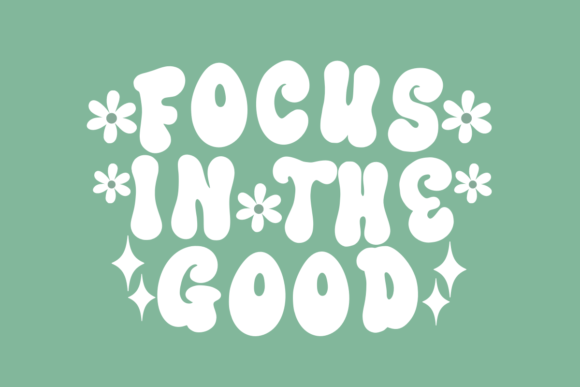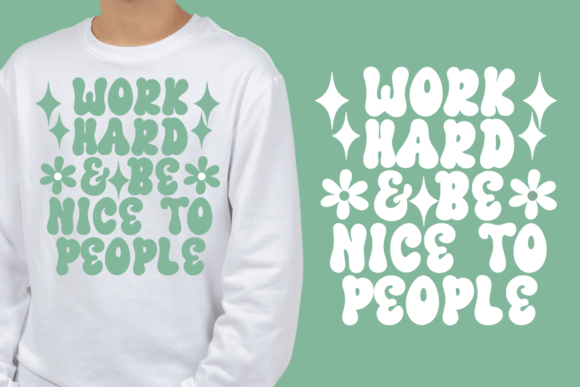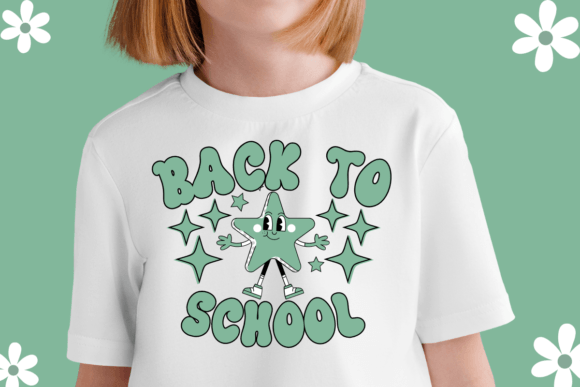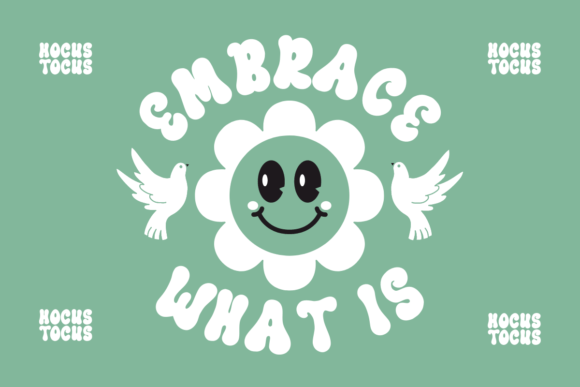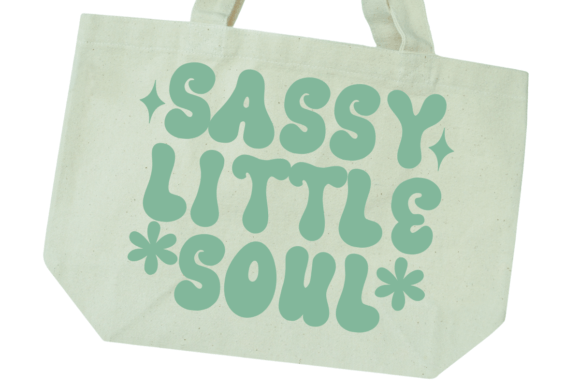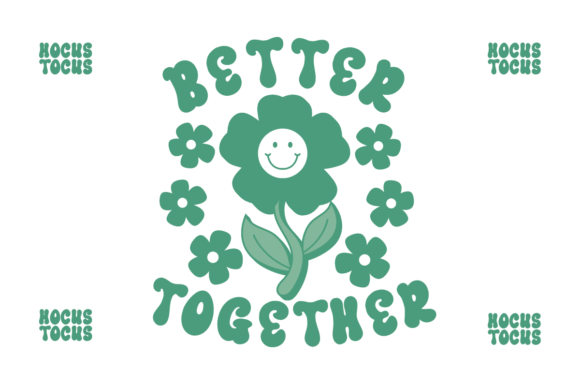
Introduction to Hocus Tocus Font
Have you ever stumbled upon a font that instantly elevates your creative project and makes you feel like a kid in a candy store? For me, that font is Hocus Tocus Font. Its quirky charm and playful vibes are like a breath of fresh air, making even the most mundane designs feel whimsical and delightful.
As a designer, you know how challenging it can be to find that perfect font that adds an extra layer of magic to your work. But with Hocus Tocus Font, you can rest assured that your designs will stand out from the crowd and leave a lasting impression. Whether you’re working on a book cover, poster, or packaging, this high-quality font is sure to be a game-changer.
Honest Review: Hocus Tocus Font
As a designer, I’m always on the lookout for high quality design resources to elevate my creative projects. Recently, I stumbled upon the Hocus Tocus Font, and I’m excited to share my thoughts with you.
- ✨ Unique and playful design: The Hocus Tocus Font has a whimsical feel that’s perfect for adding a touch of magic to your design projects.
- ✨ High quality glyphs: The font is well-designed and features clear, readable glyphs that are perfect for both on-screen and print use.
- ⚠️ Limited language support: Unfortunately, the Hocus Tocus Font only supports a limited number of languages, which may be a drawback for designers working on global projects.
Overall, the Hocus Tocus Font is a great addition to any designer’s toolkit. While it has some limitations, its unique design and high quality glyphs make it a valuable resource for creative projects.
Experiment with different font sizes and styles to achieve the desired look for your creative project. Use the Hocus Tocus Font in conjunction with other design resources to create a cohesive and visually appealing design.
The Hocus Tocus Font is ideal for a variety of creative projects, including logos, graphics, presentations, and documents. Its high-quality design and transparent background make it a valuable addition to any design resource library.